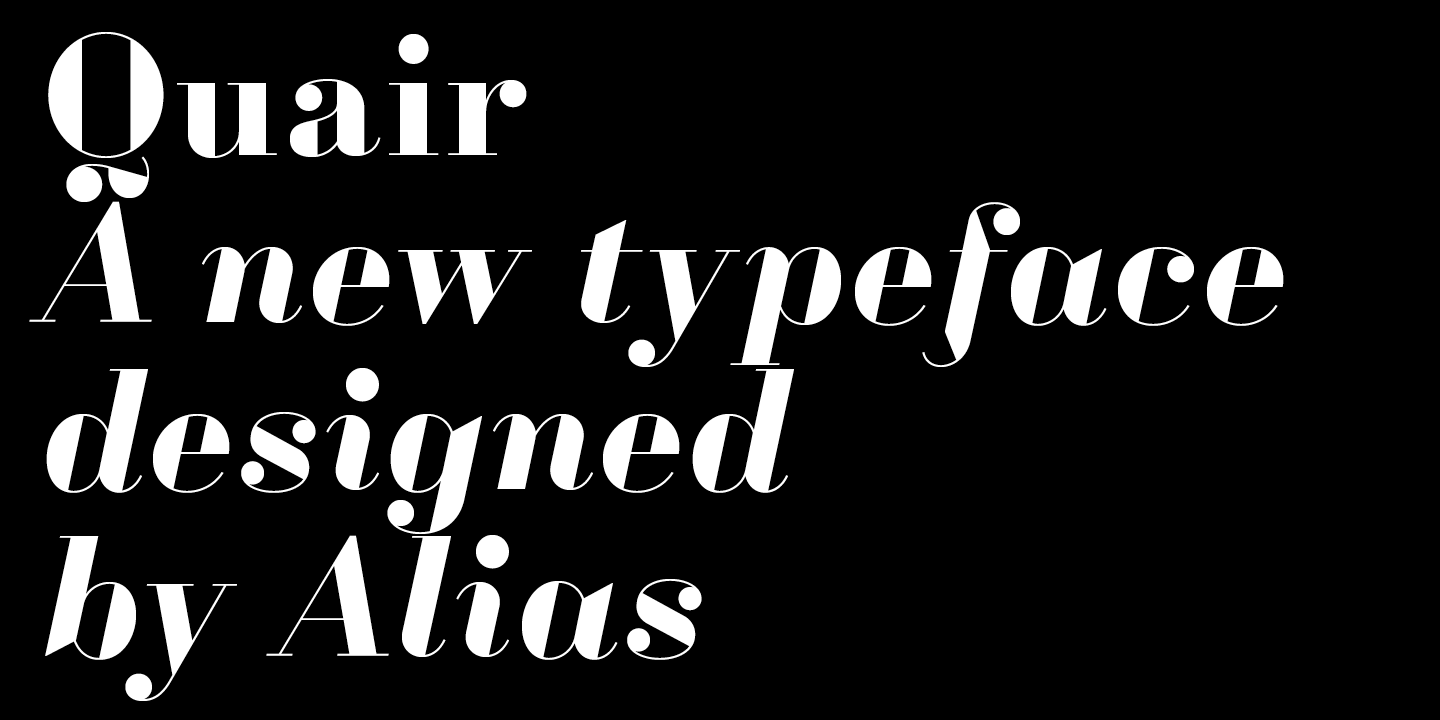
Quair Font is ideal for quirky creative studios, unconventional art galleries, eccentric fashion brands, unique boutique signage, alternative music venues, independent coffee shops, artistic expression materials, creative freelancer branding, bohemian lifestyle products, and distinctive cultural event promotions.
What makes Quair Font exciting is its distinctive character and unconventional charm that captures the essence of creative individuality with artistic flair and unique personality. This captivating typeface embodies the spirit of creative rebellion with its quirky character forms and unconventional proportions that evoke artist studios filled with experimental work, independent bookshops with carefully curated collections, and the kind of creative spaces where artistic vision takes precedence over conformity. The font's unique character creates an immediate impression of authenticity and the kind of creative confidence that celebrates individuality.
Quair Font family includes regular weight with creatively crafted character designs featuring unconventional curves and artistic proportions. The typeface maintains excellent readability while showcasing its distinctive creative personality through uniquely designed letterforms that seem crafted by artists who understand that true creativity requires the courage to be different.
Creative professionals consistently choose Quair Font Free Download for projects requiring authentic artistic appeal and creative credibility. This remarkable typeface brings the power of creative individuality to brand communications, combining unconventional aesthetics with artistic authenticity to create memorable creative experiences. The uniquely designed characters ensure distinctive positioning across all applications, making it essential for creative agencies, artistic venues, and any organization seeking to communicate the transformative power of creativity and the authentic self-expression that comes from embracing artistic individuality through Quair Font Free Download.